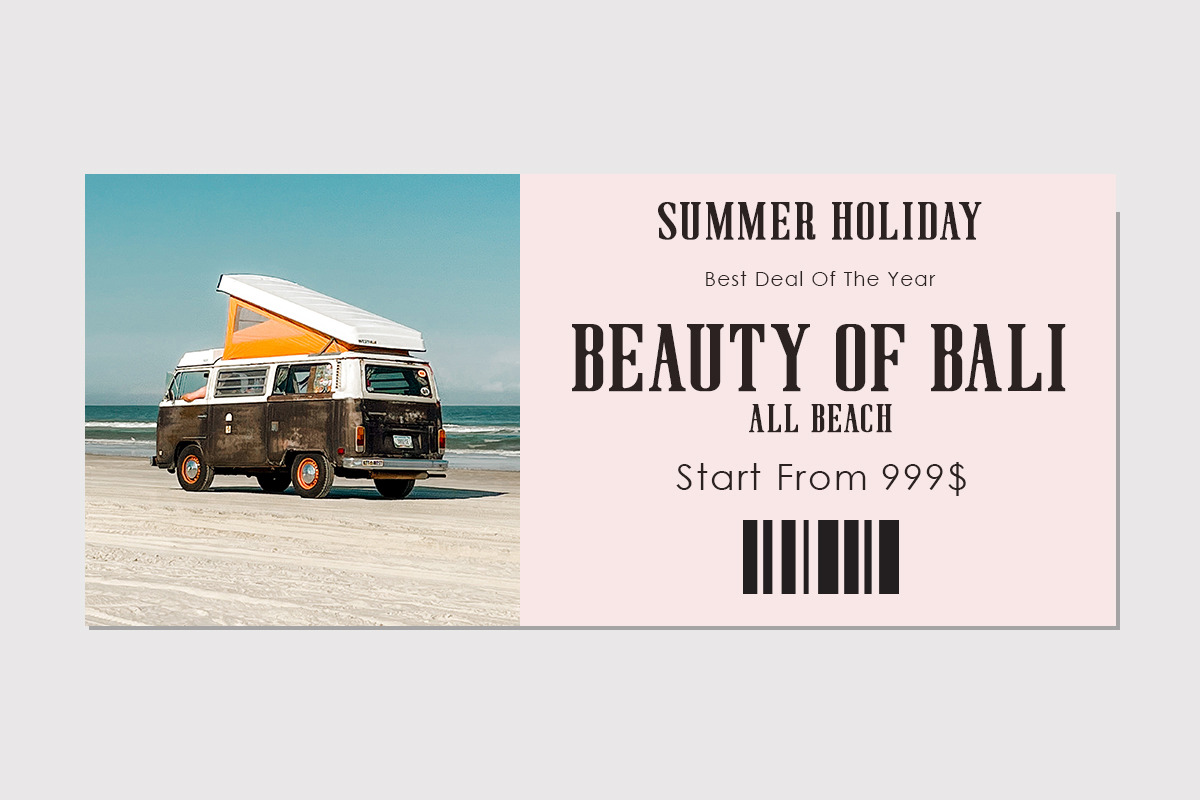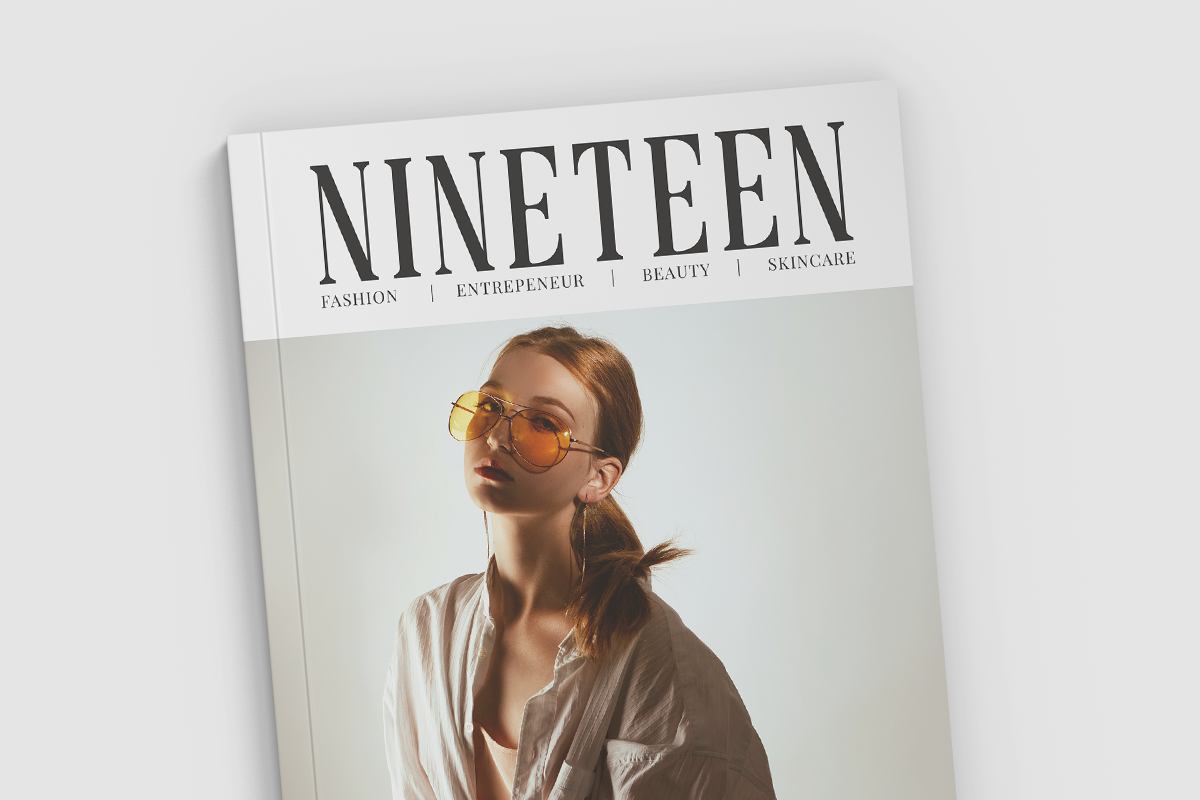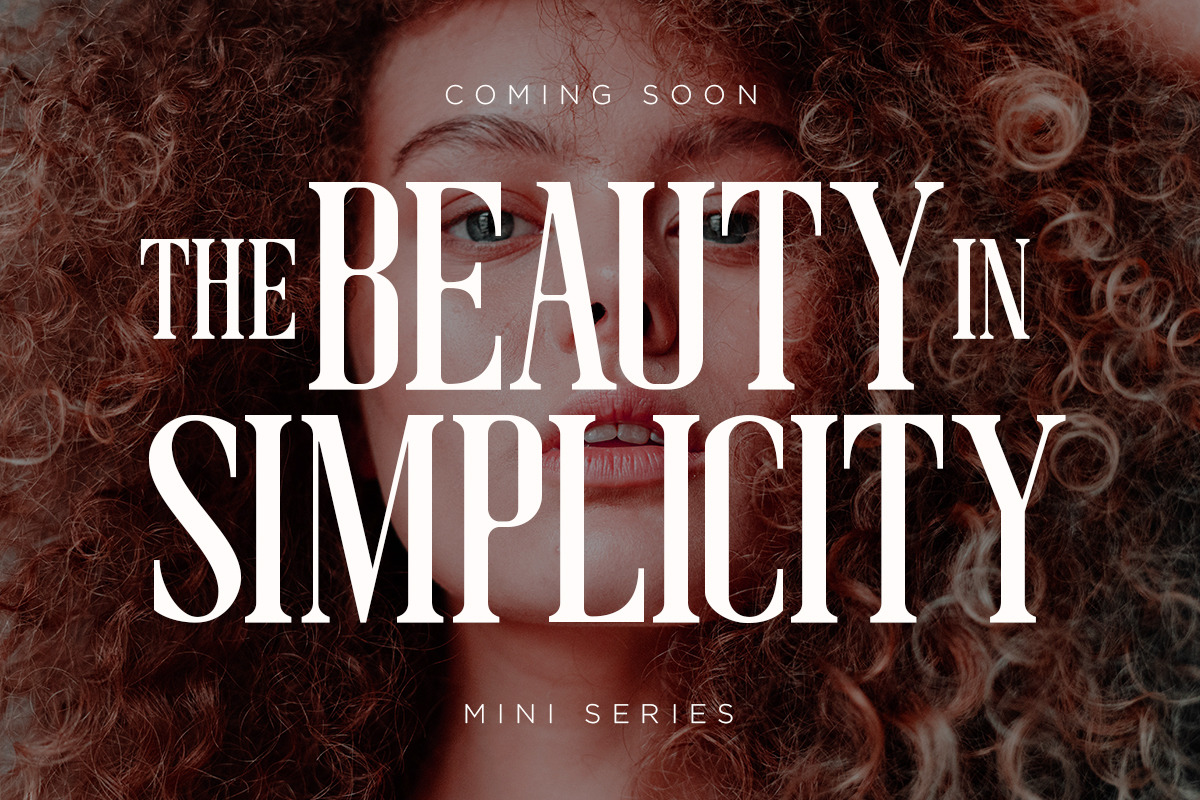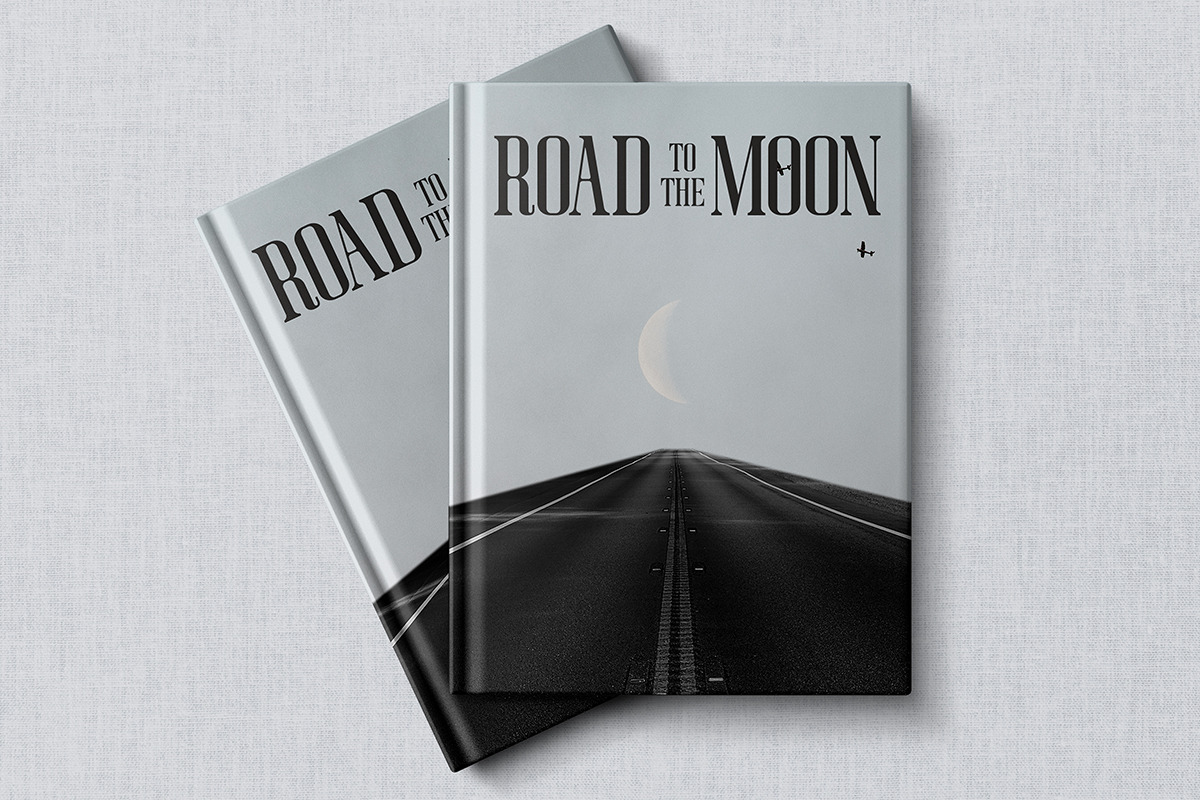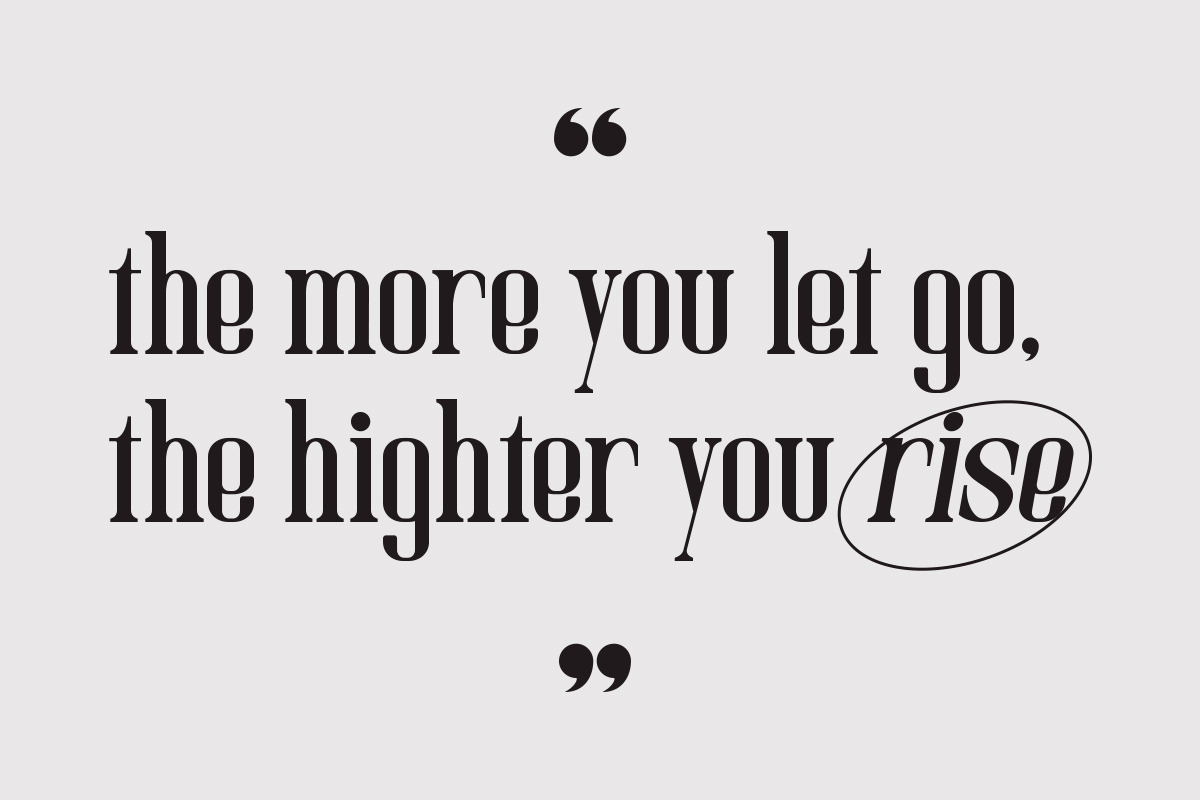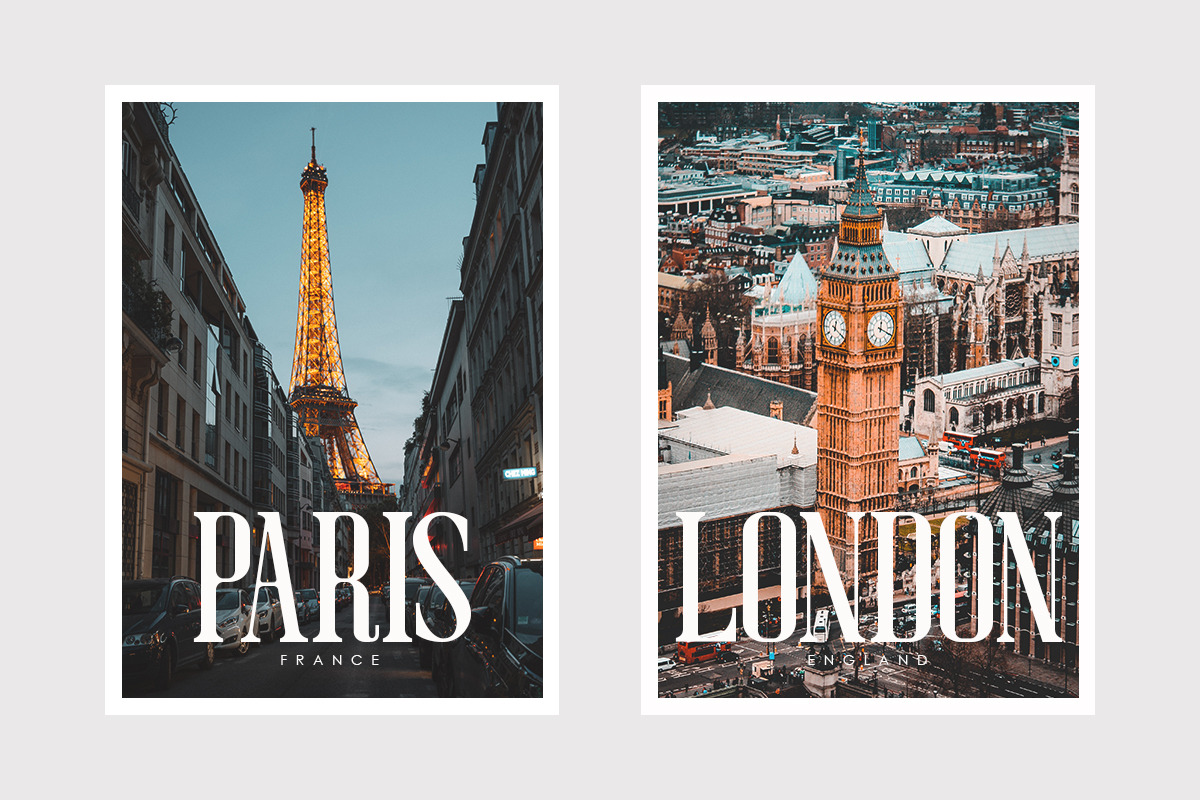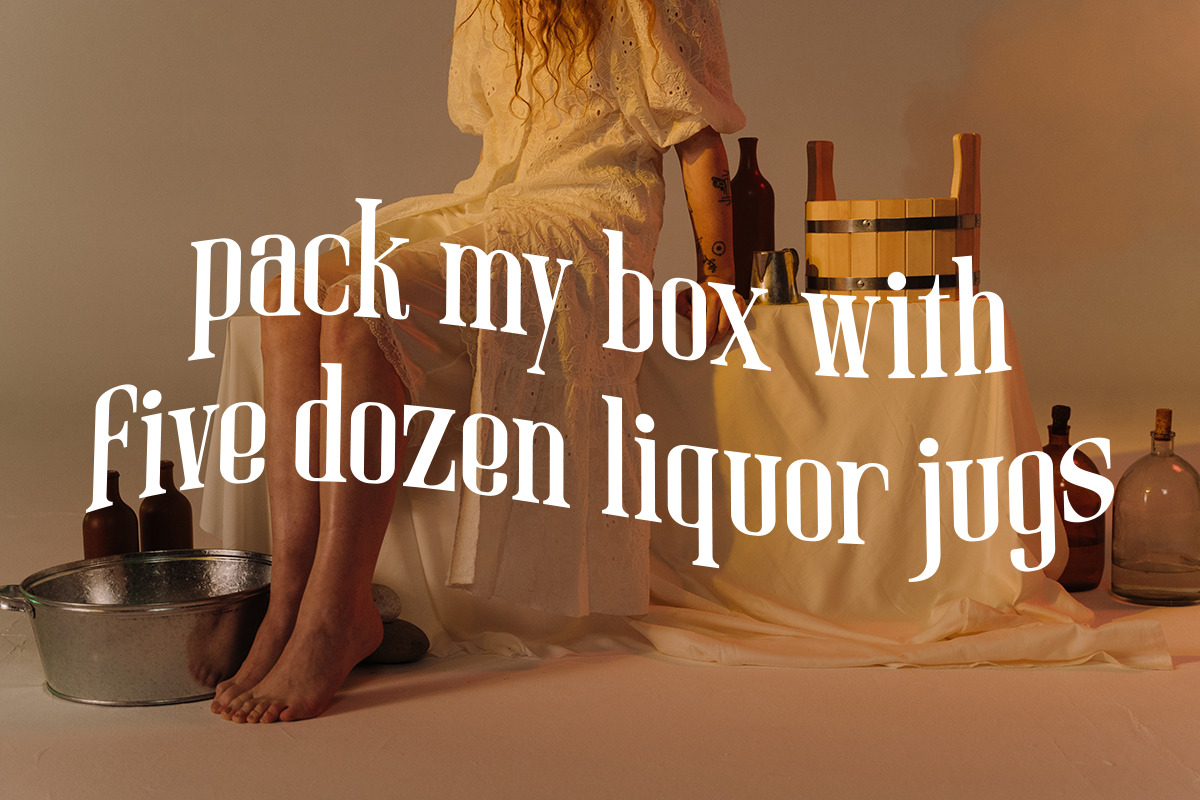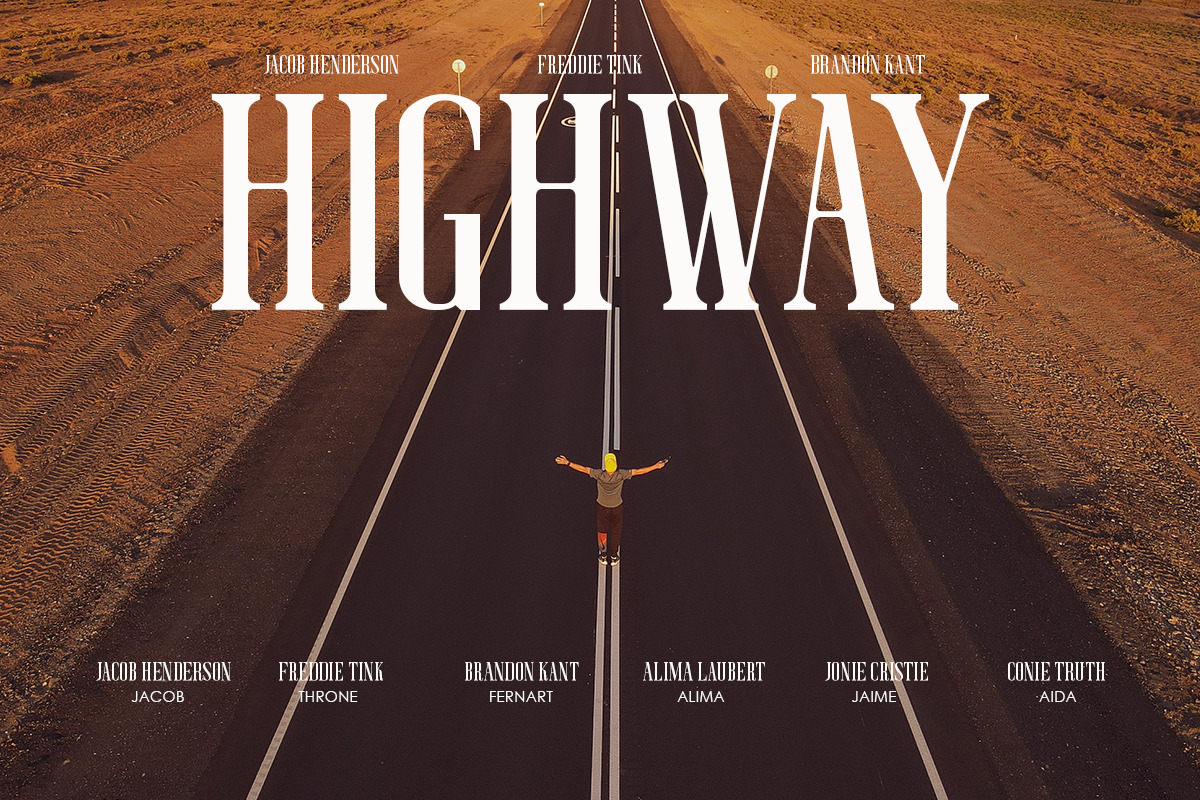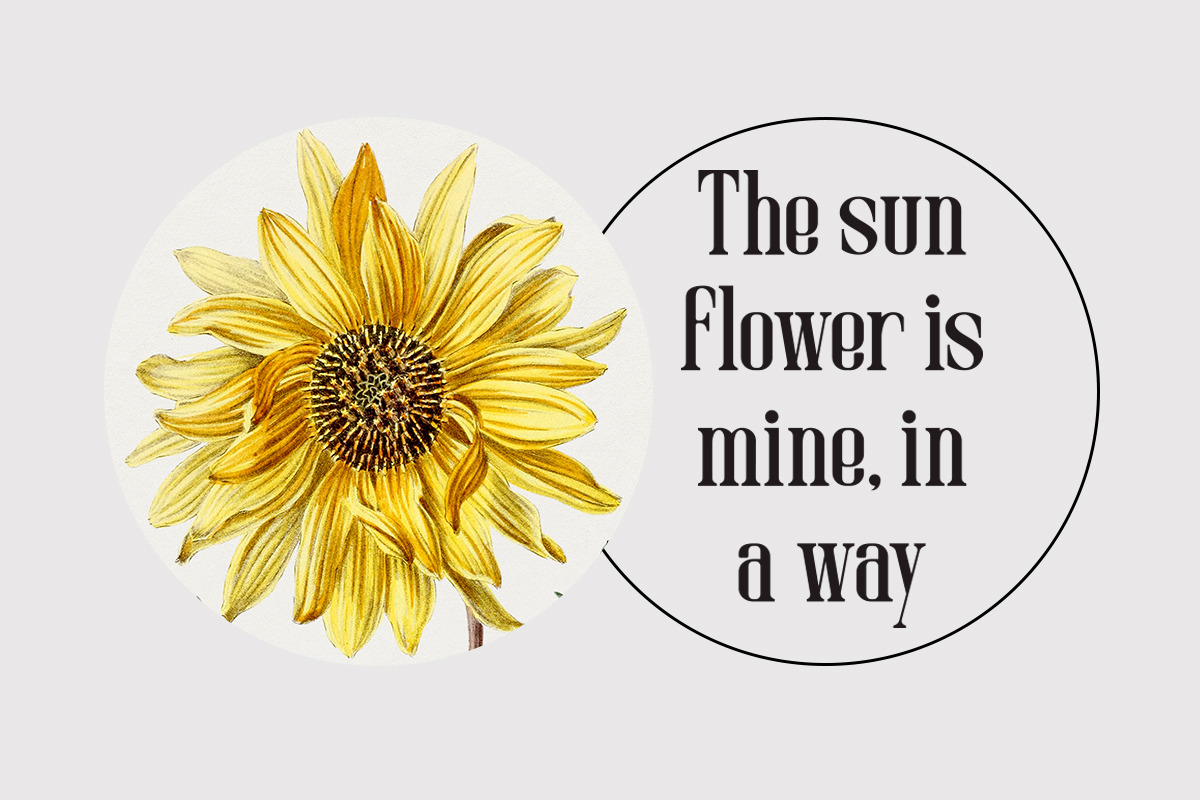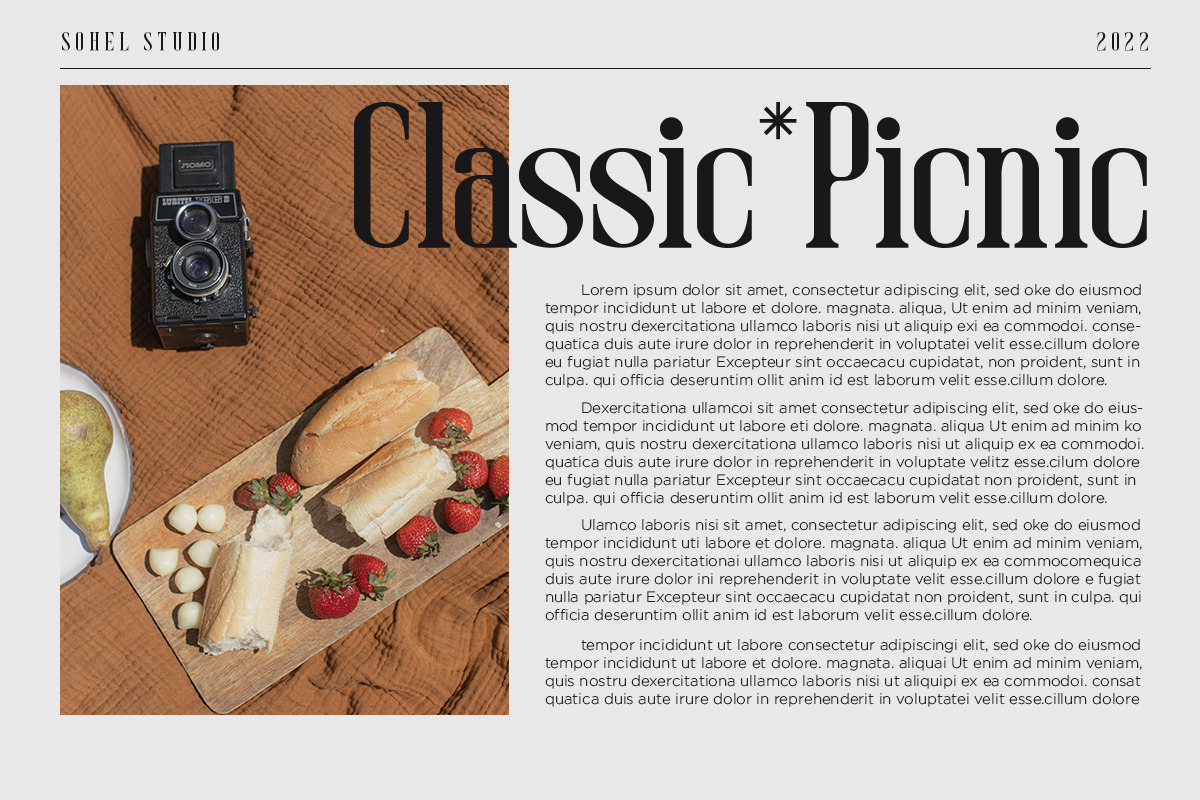
Mitten - Movie Title Font
“Mitten” is a bold serif that has a classic and bold style. Depicted to provide basic headlines that are confident and impressive - while still feeling warm and welcoming.
There are 3 different styles that you can apply in your design projects. This typeface is perfect for an book or movie title design, fashion brand, magazine, clothes, lettering, quotes, social media posts and so much more.
Mitten Features:
- 3 Weights font (Regular,Italic,Bold)
- Uppercase And Lowercase